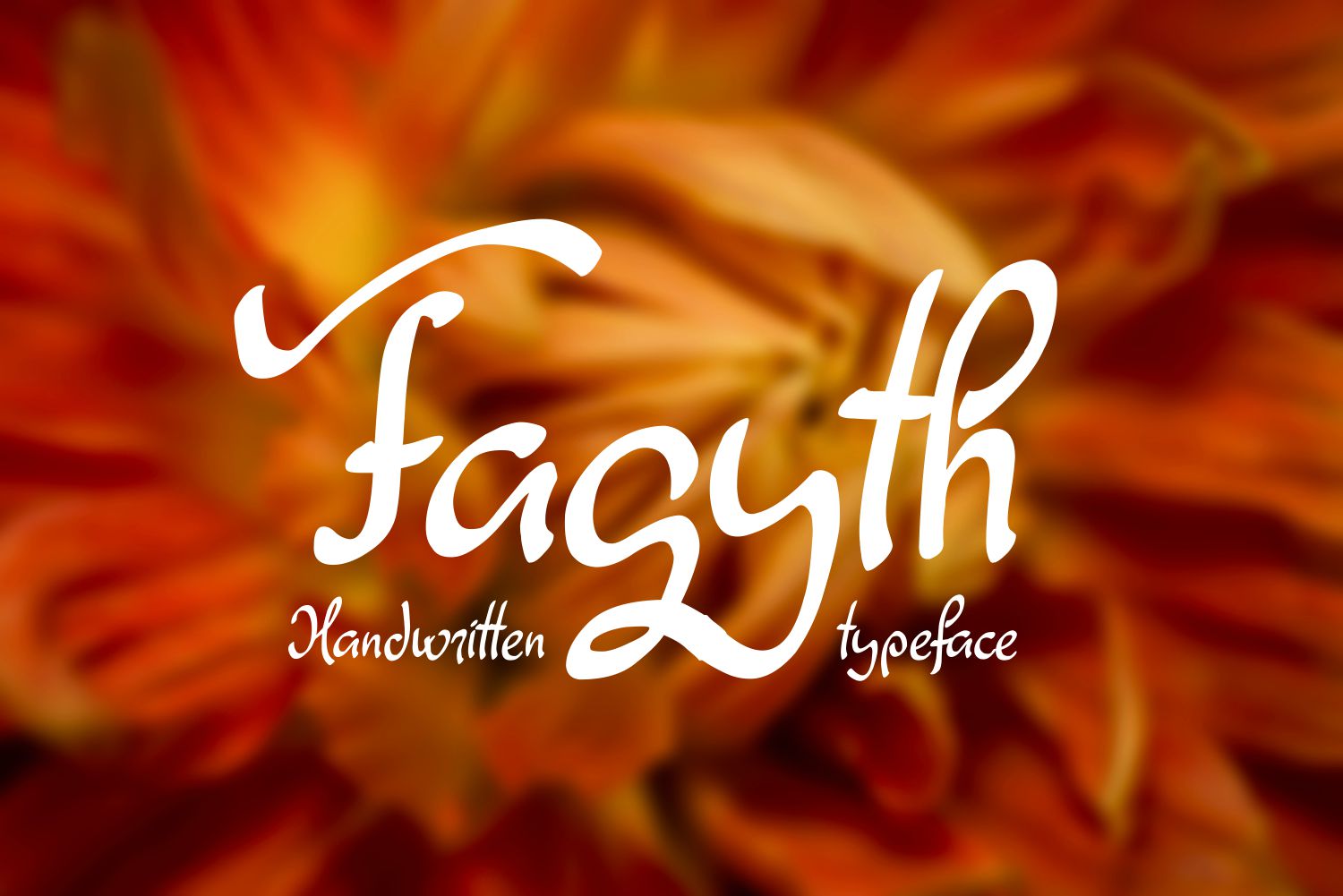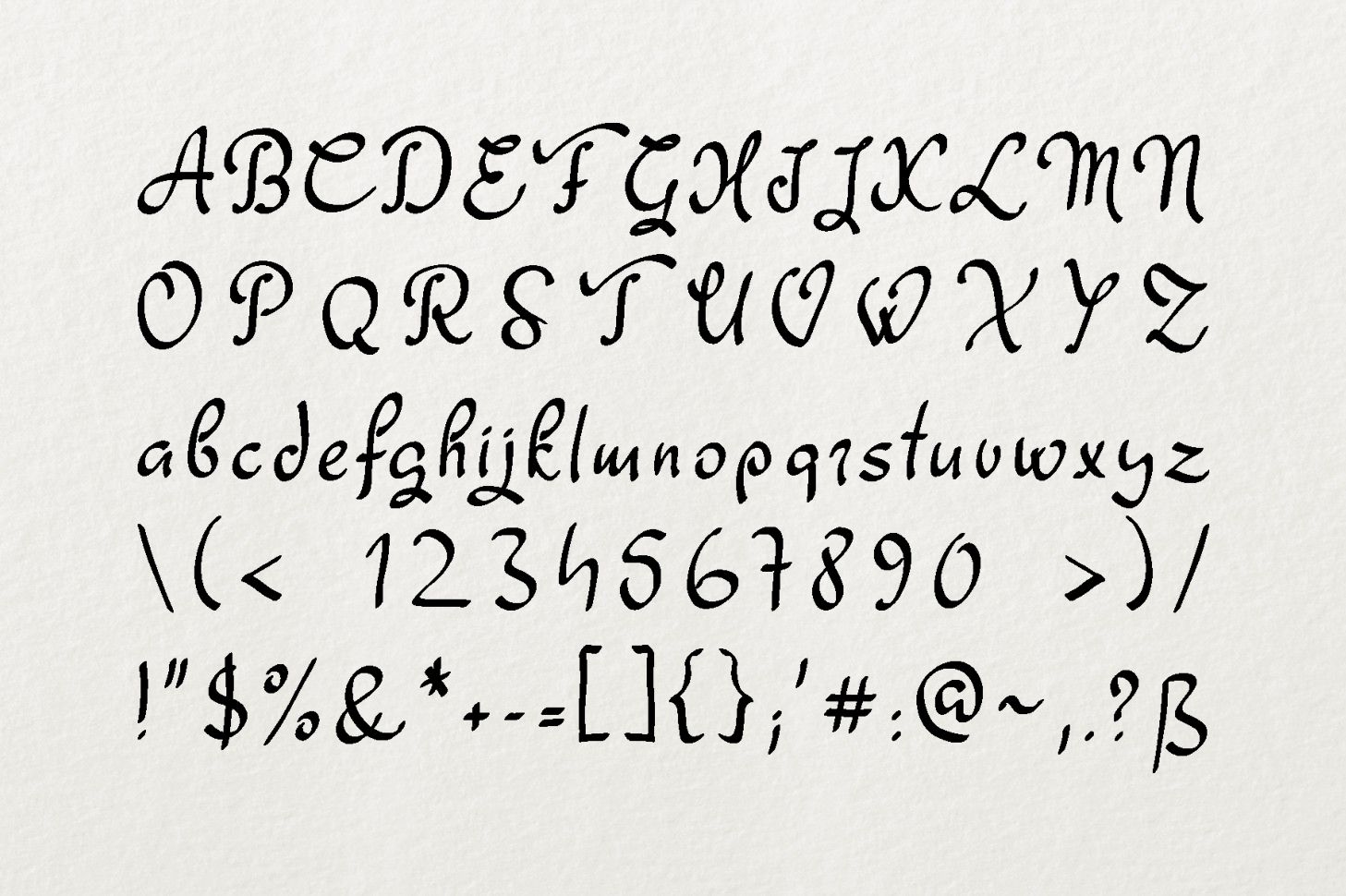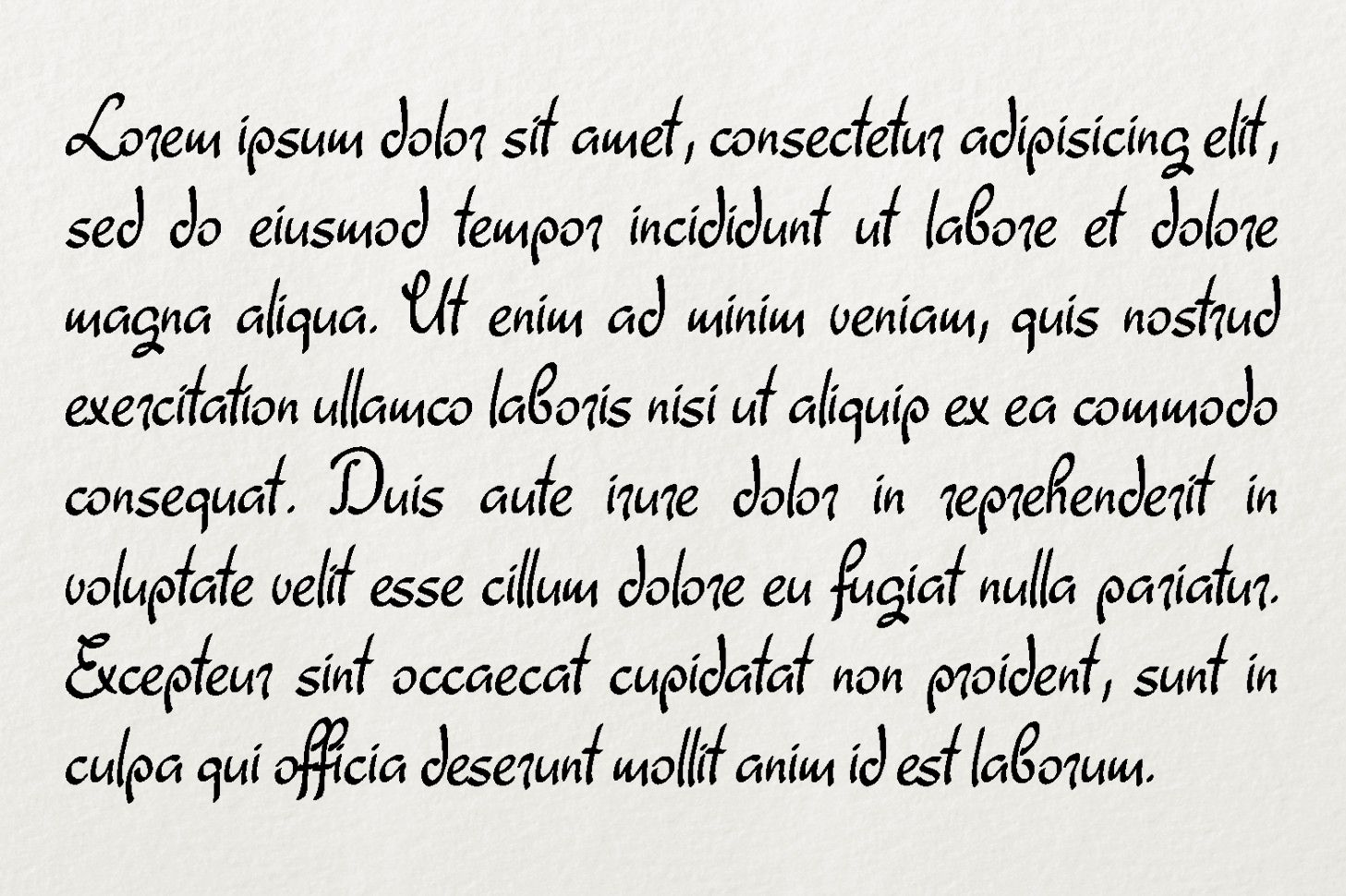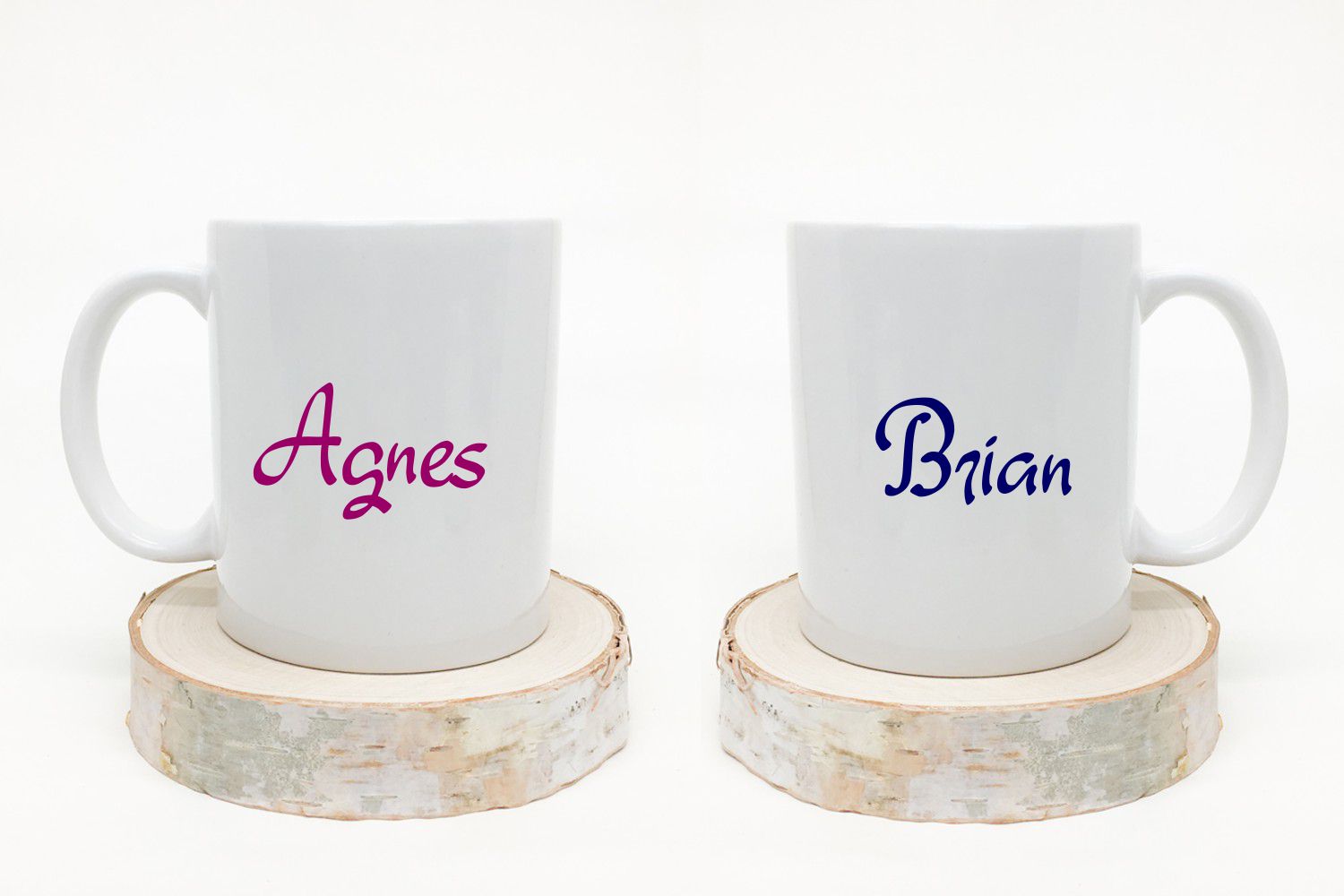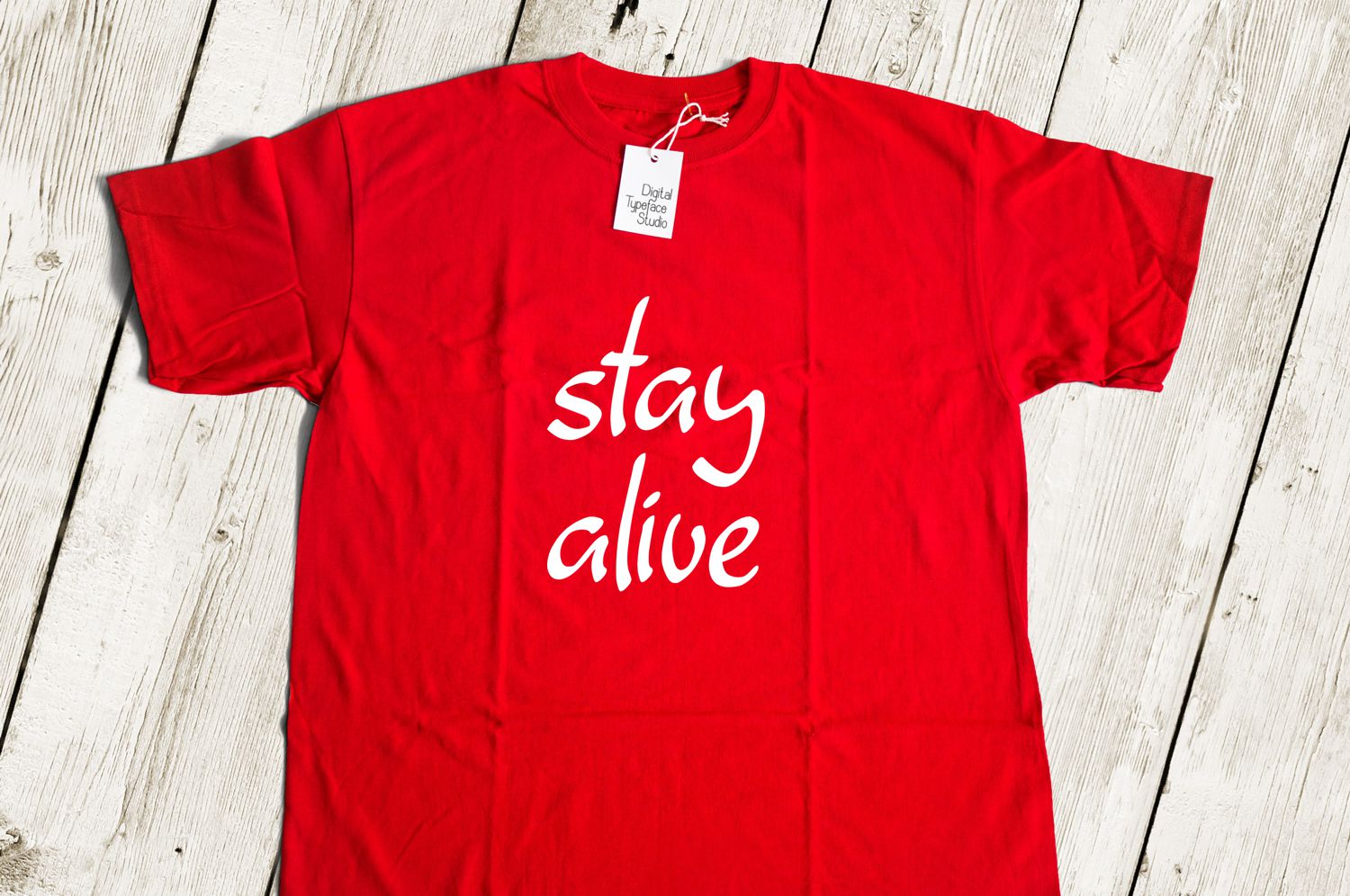
Fagyth Font
Fagyth is a beautiful handwritten font, ideal for use in a wide range of friendly and relaxed designs. This easy to read script is a great way to incorporate an easy elegance into your creative projects.